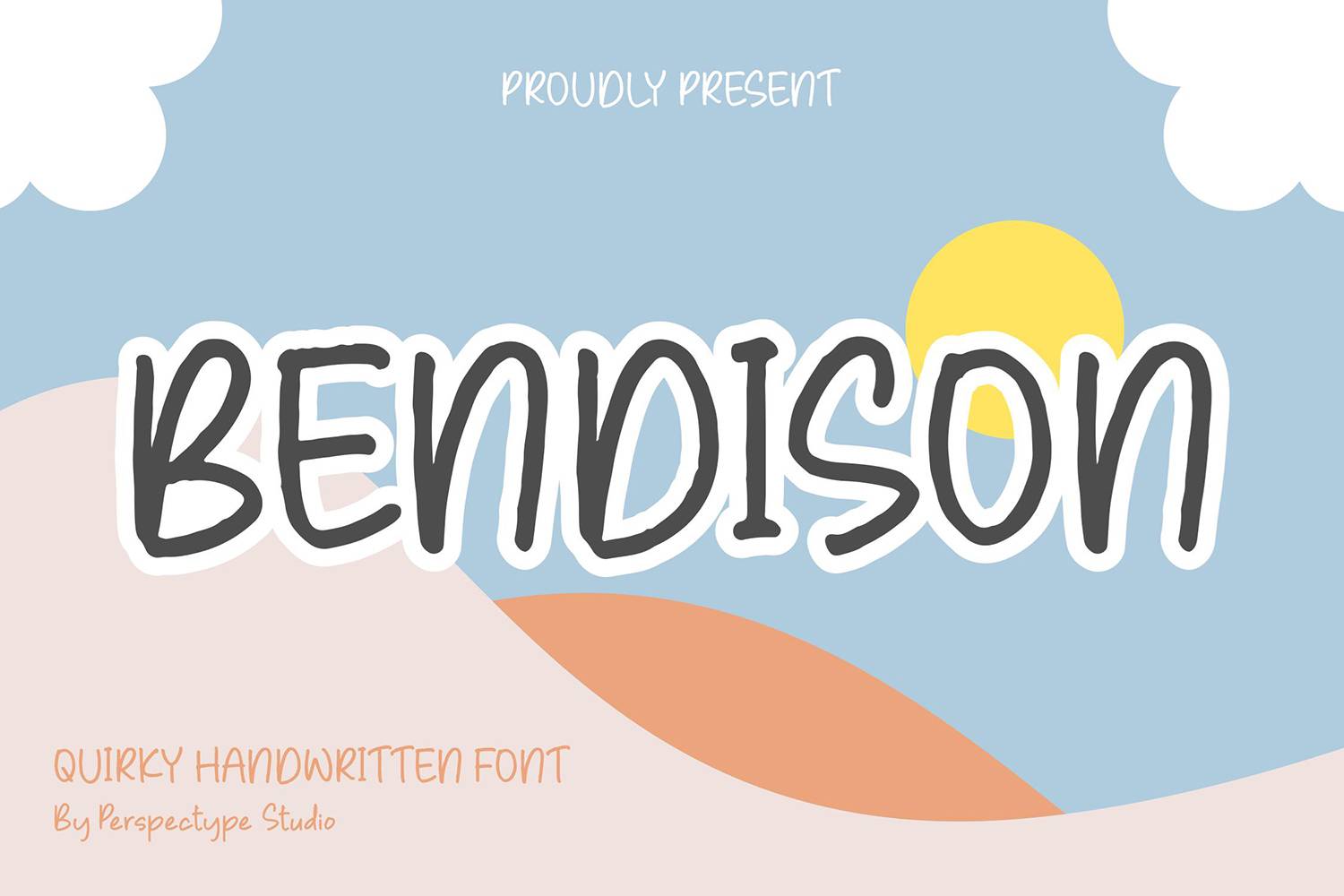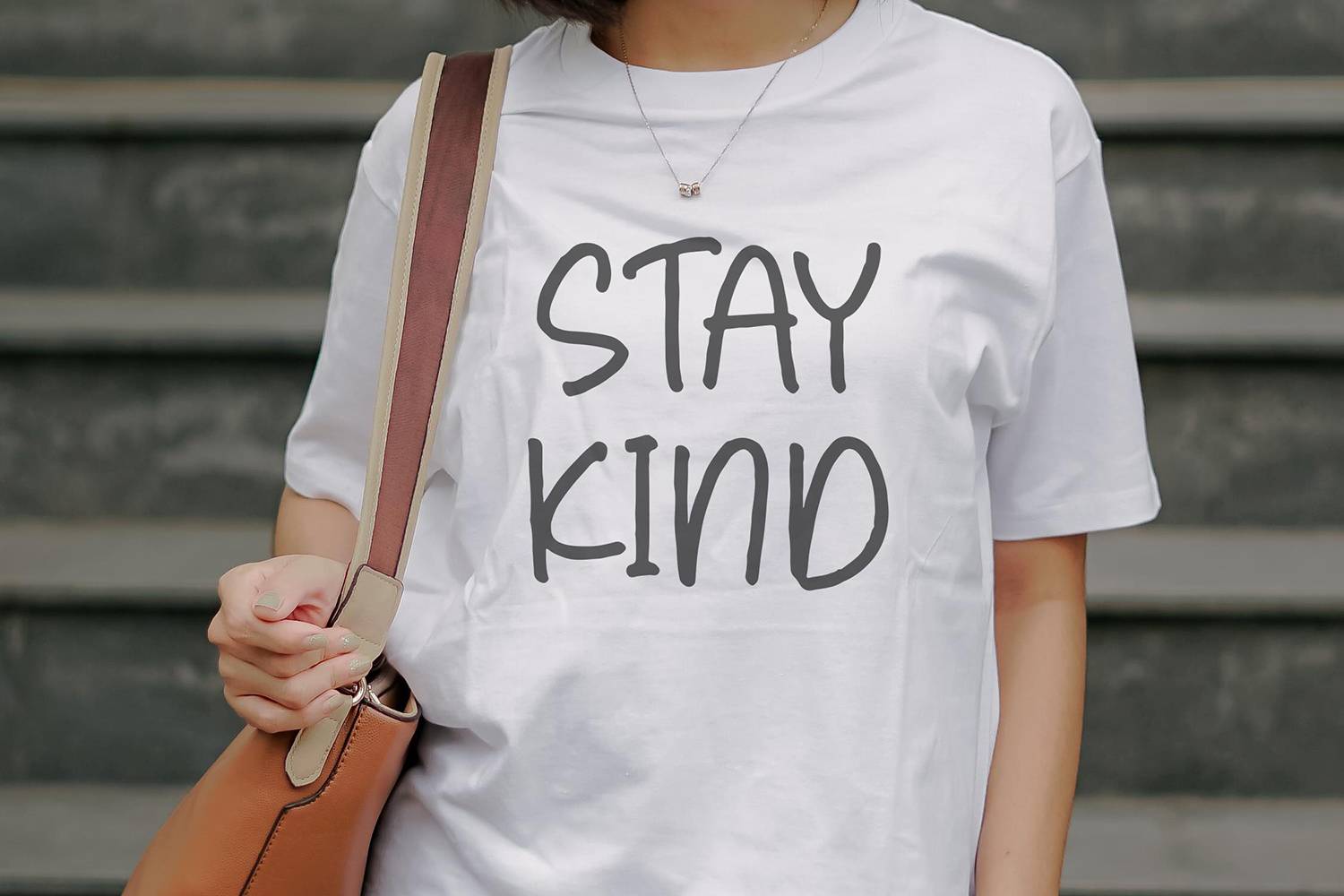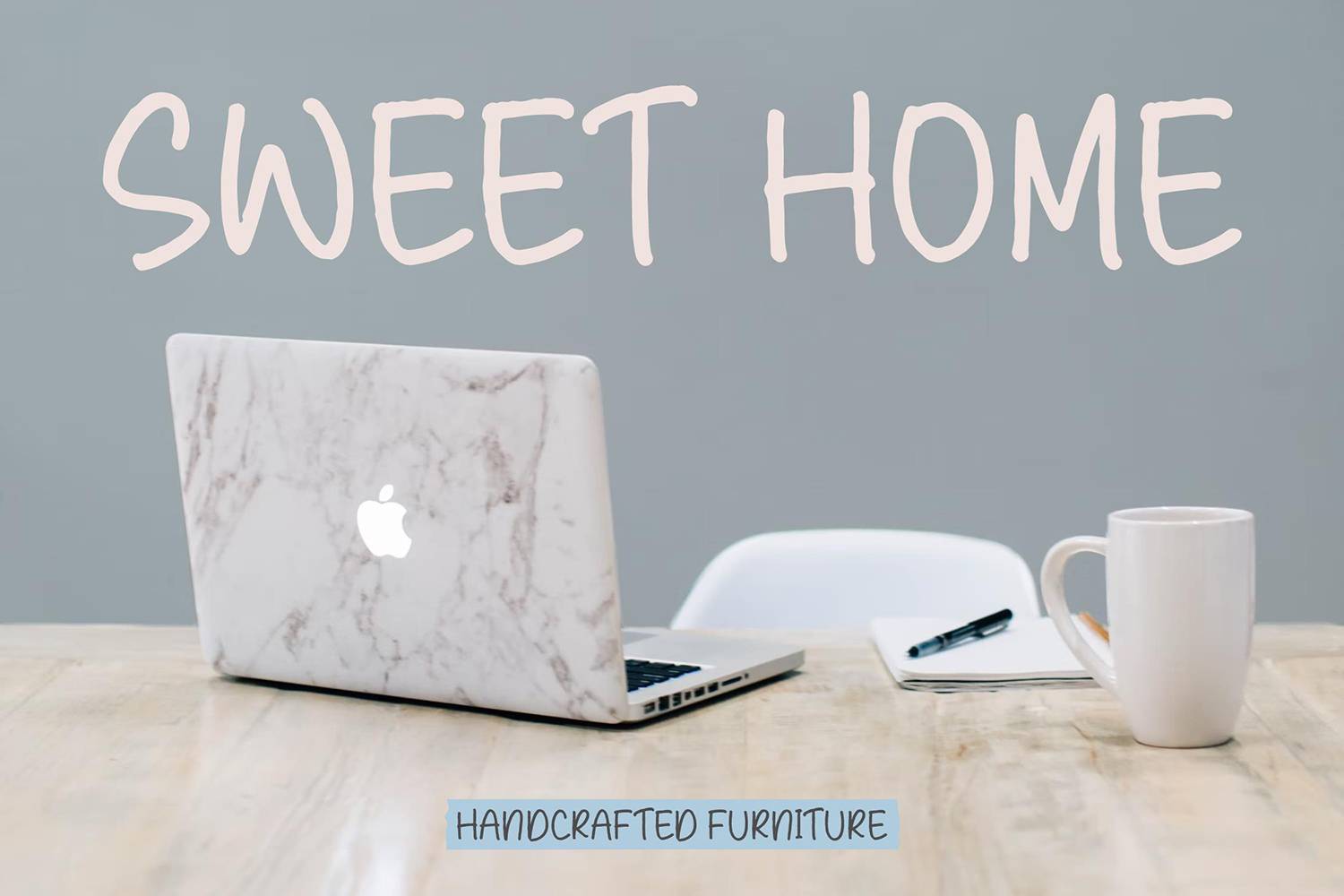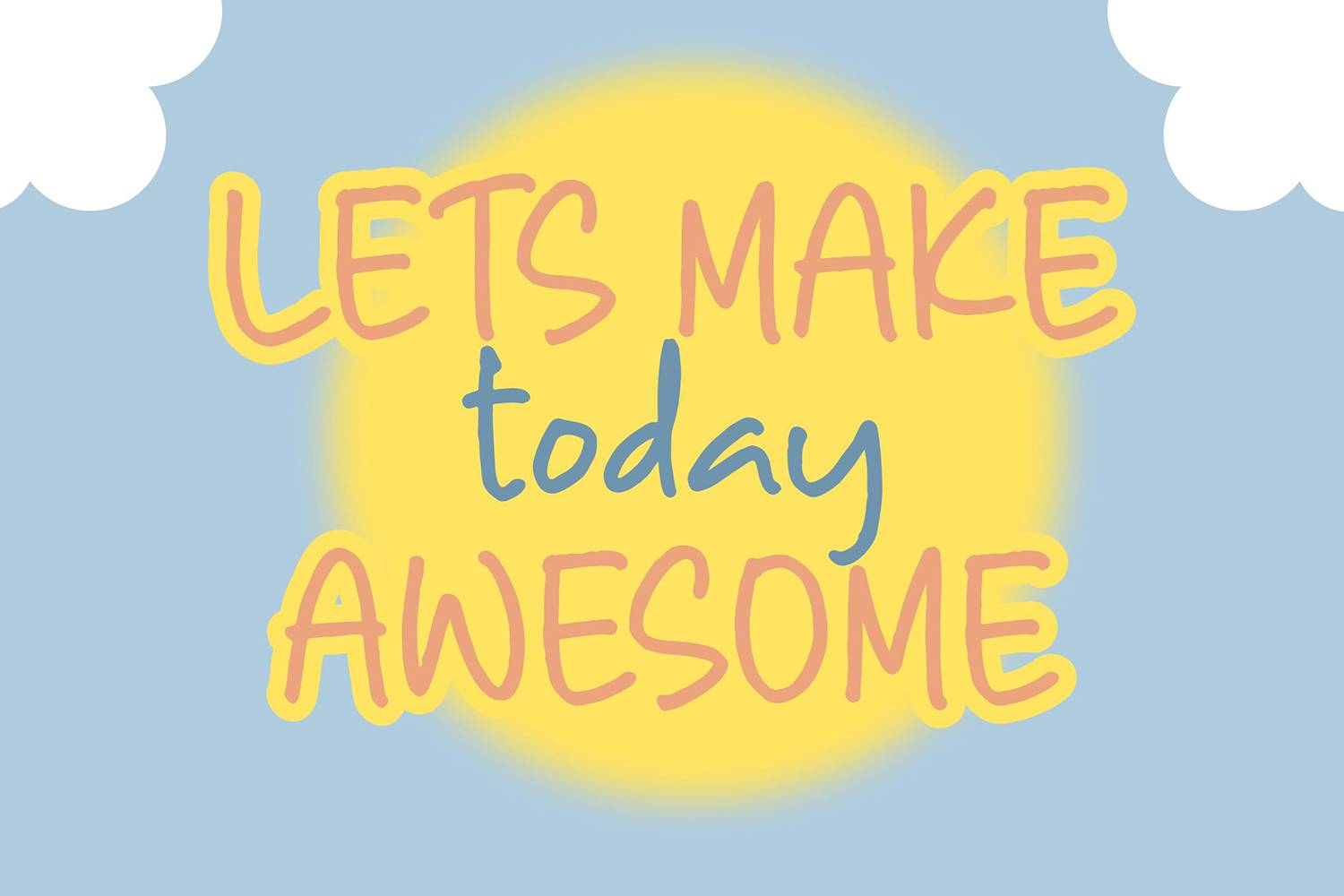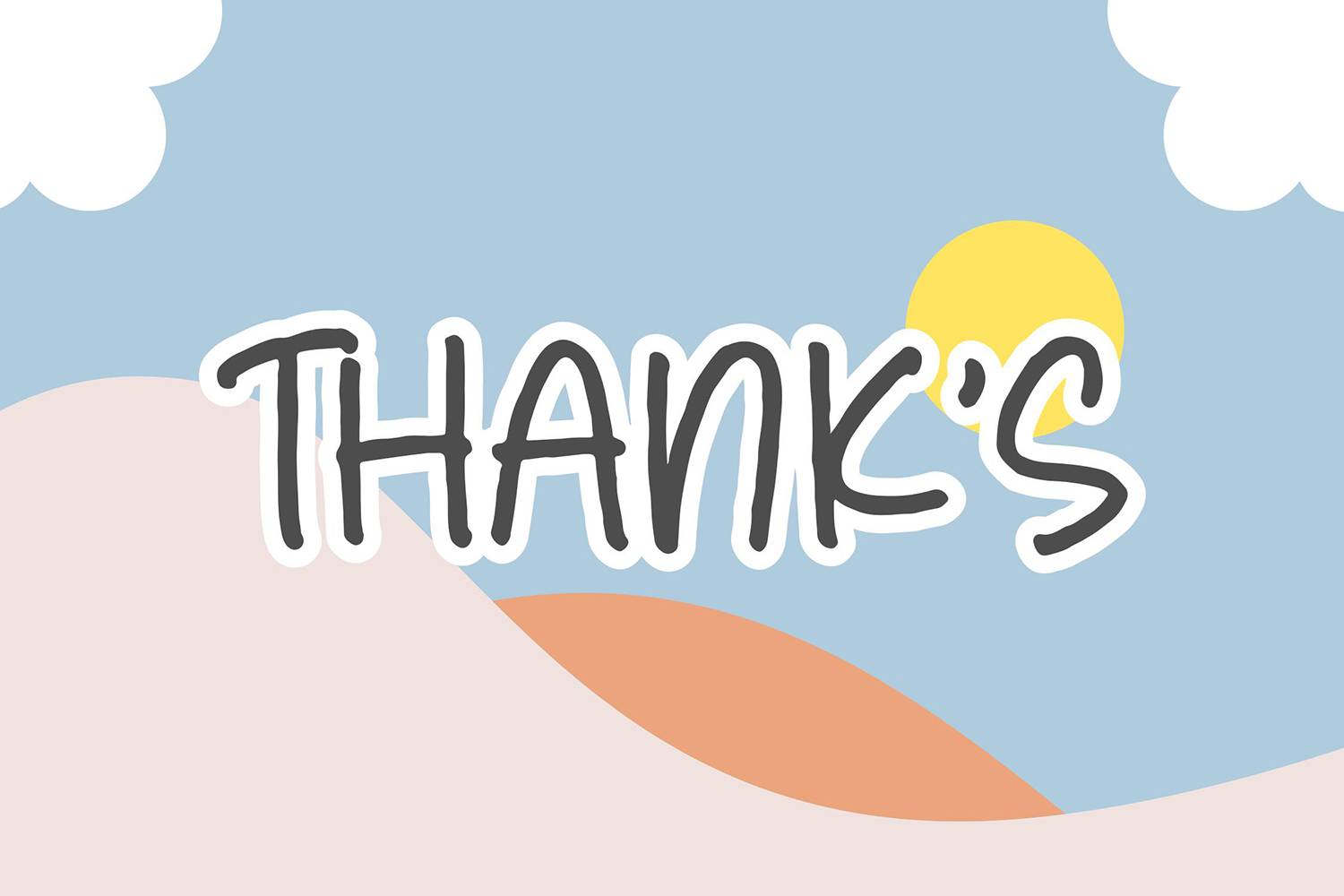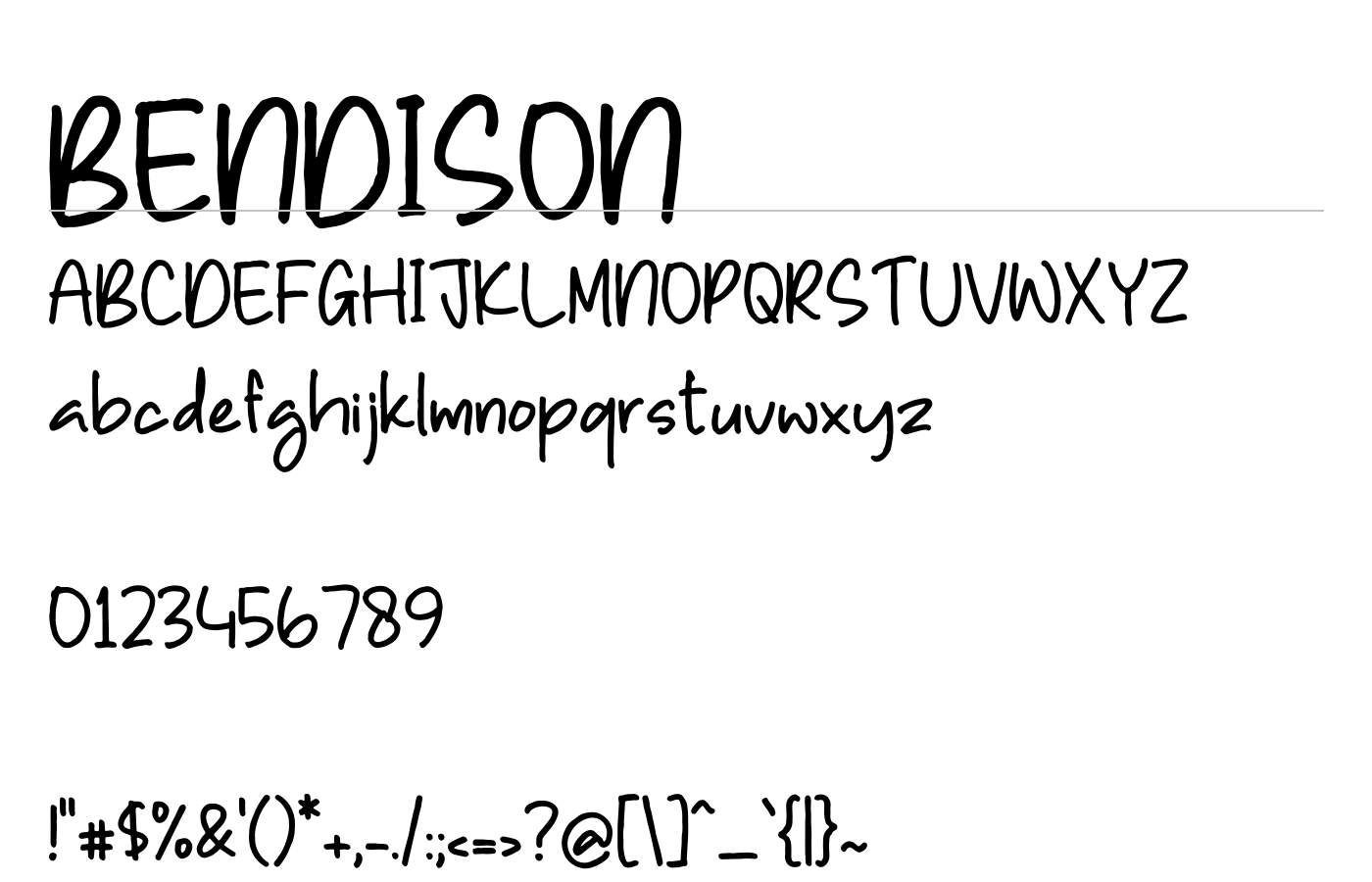
Bendison is a playful, casual handwritten font featuring tall, narrow letterforms with a friendly and approachable style. Its light weight and uneven strokes give it a natural, informal feel, making it ideal for creative projects, personal branding, and fun, relaxed designs. This font works well for headlines, invitations, and any context where a warm, hand-drawn touch is desired.
Bendison Font